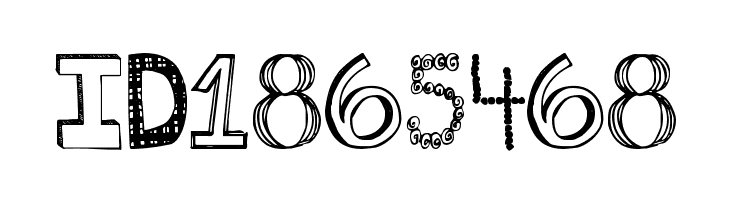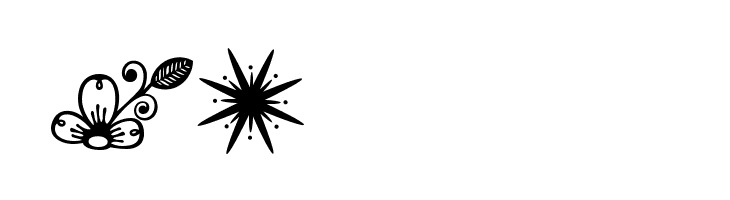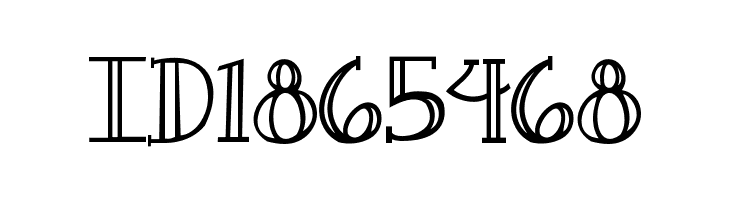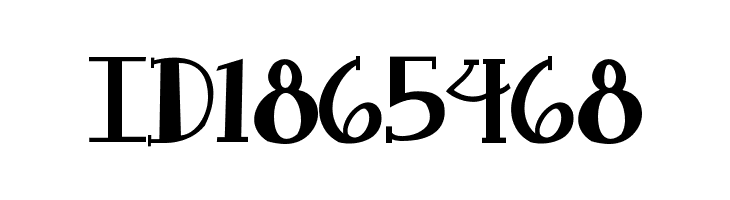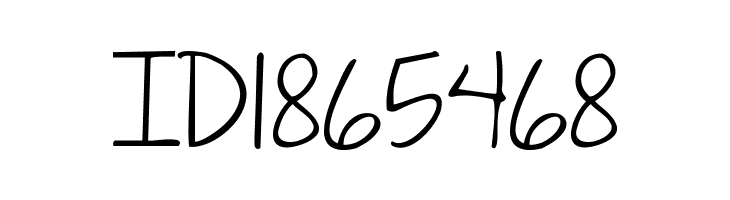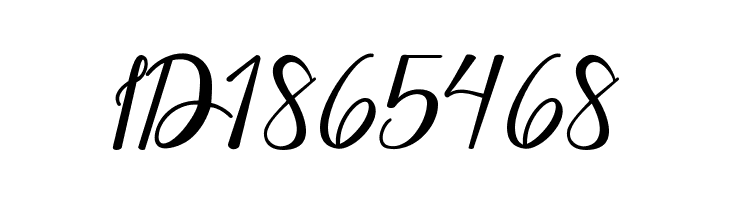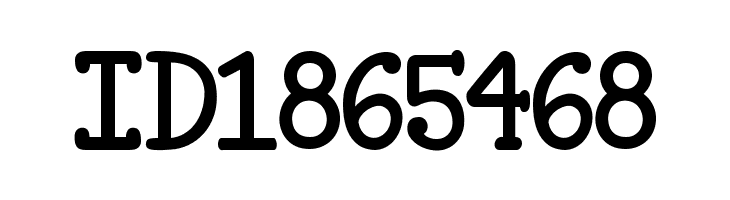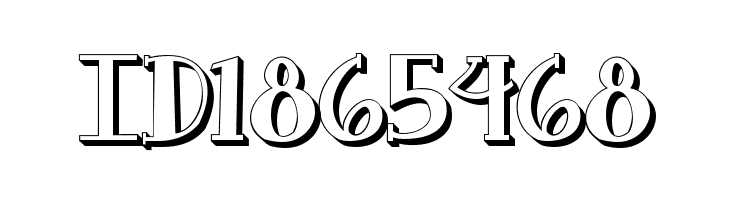
• Janda Closer To Free
A playful, rounded font with a whimsical and friendly appearance.
• Janda Curlygirl Chunky
A playful, chunky font with whimsical curls and bold strokes.
• Janda Curlygirl Pop
A playful and whimsical font with curly, decorative elements.
• Janda Curlygirl Serif
A playful serif font with curly, whimsical elements.
• Janda Elegant Handwriting
A graceful, flowing script font with elegant, continuous strokes.
• Janda Everyday Casual
A casual, handwritten font with a friendly and approachable style.
• Janda Fabulous
A whimsical and decorative font with playful patterns and artistic flair.
• Janda Fabulous
A playful, decorative font with unique patterns and whimsical embellishments.
• Janda Flower Doodles
Hand-drawn floral doodle font with whimsical, varied flower illustrations.
• Janda Flower Doodles
A whimsical collection of hand-drawn floral doodles in black and white.